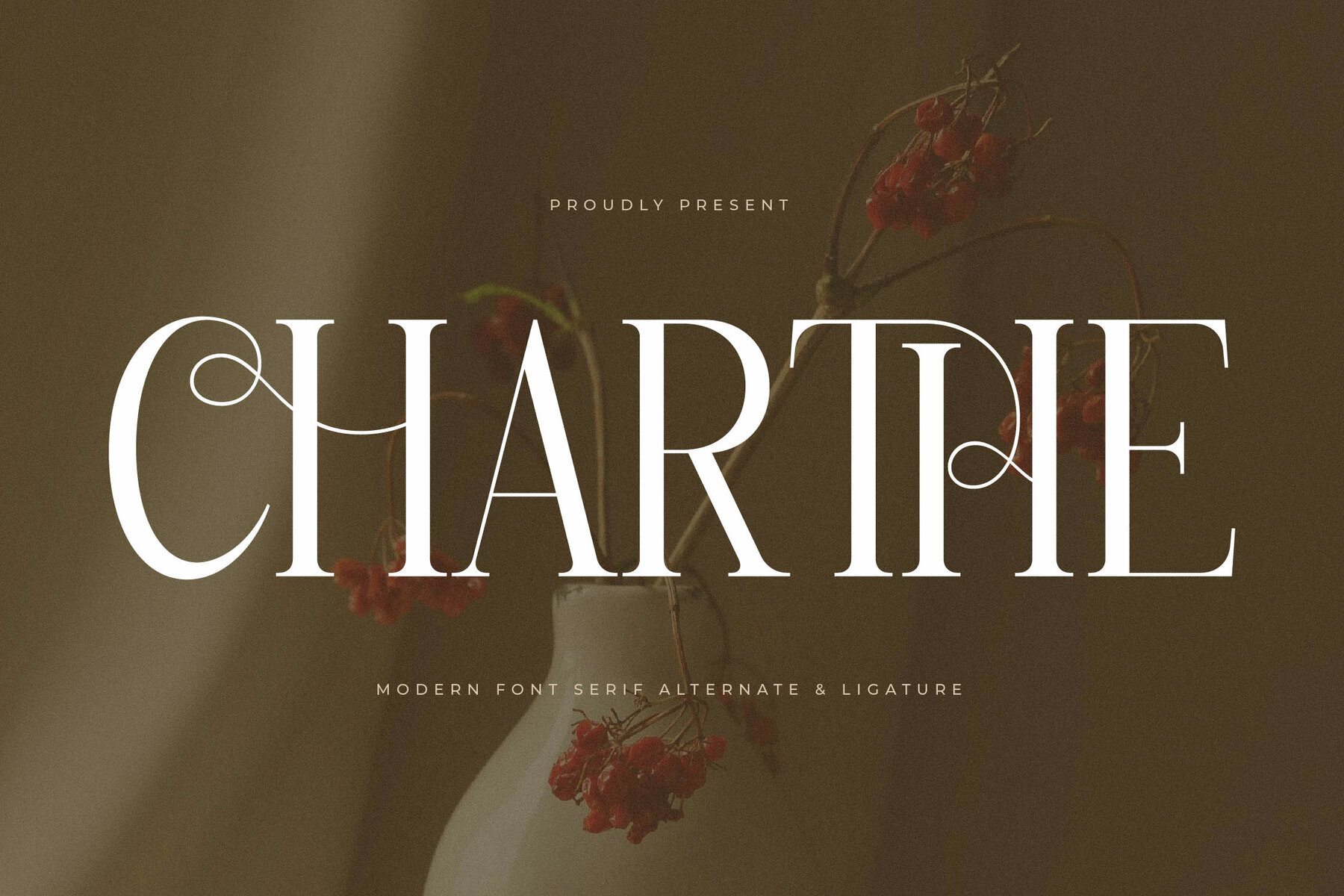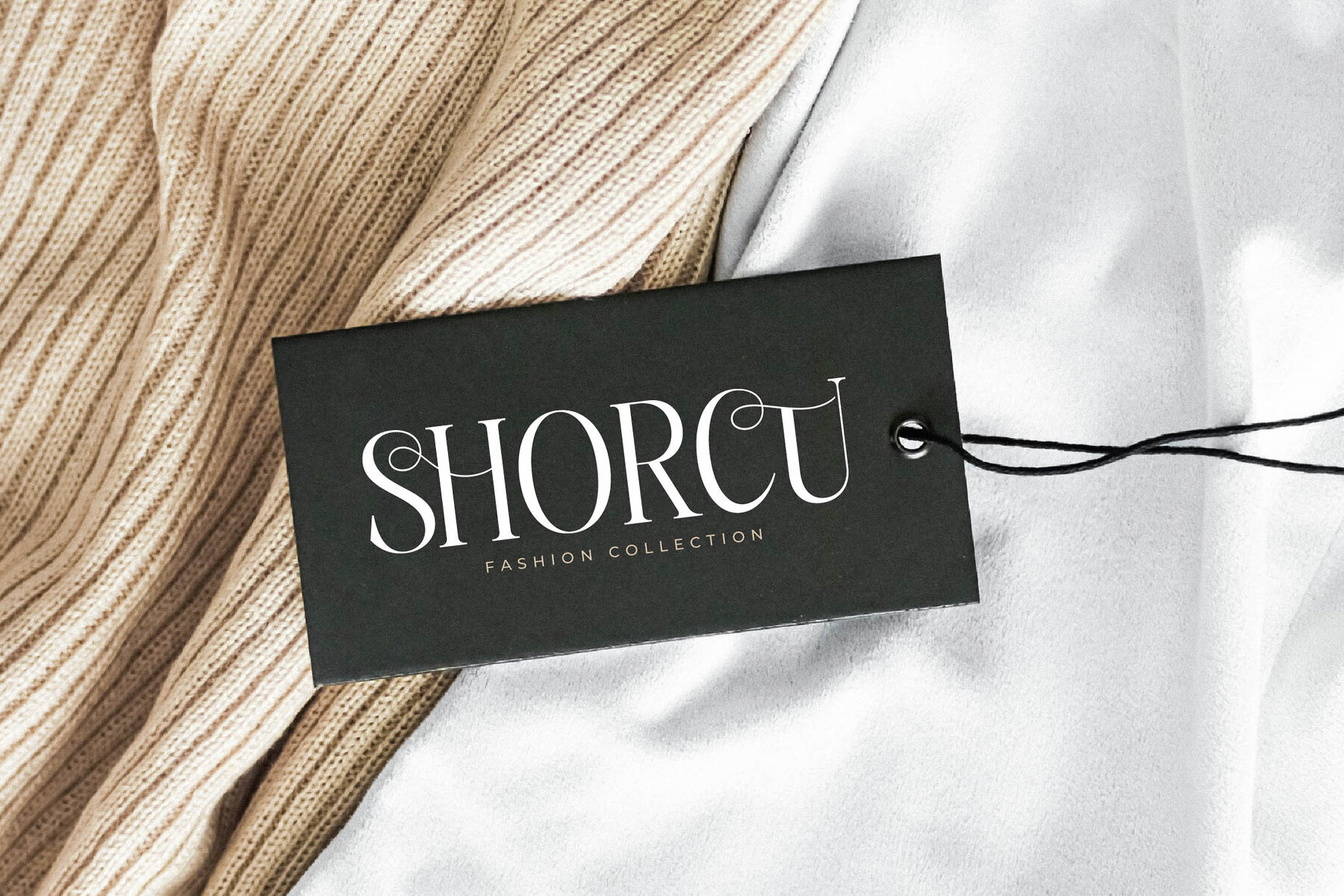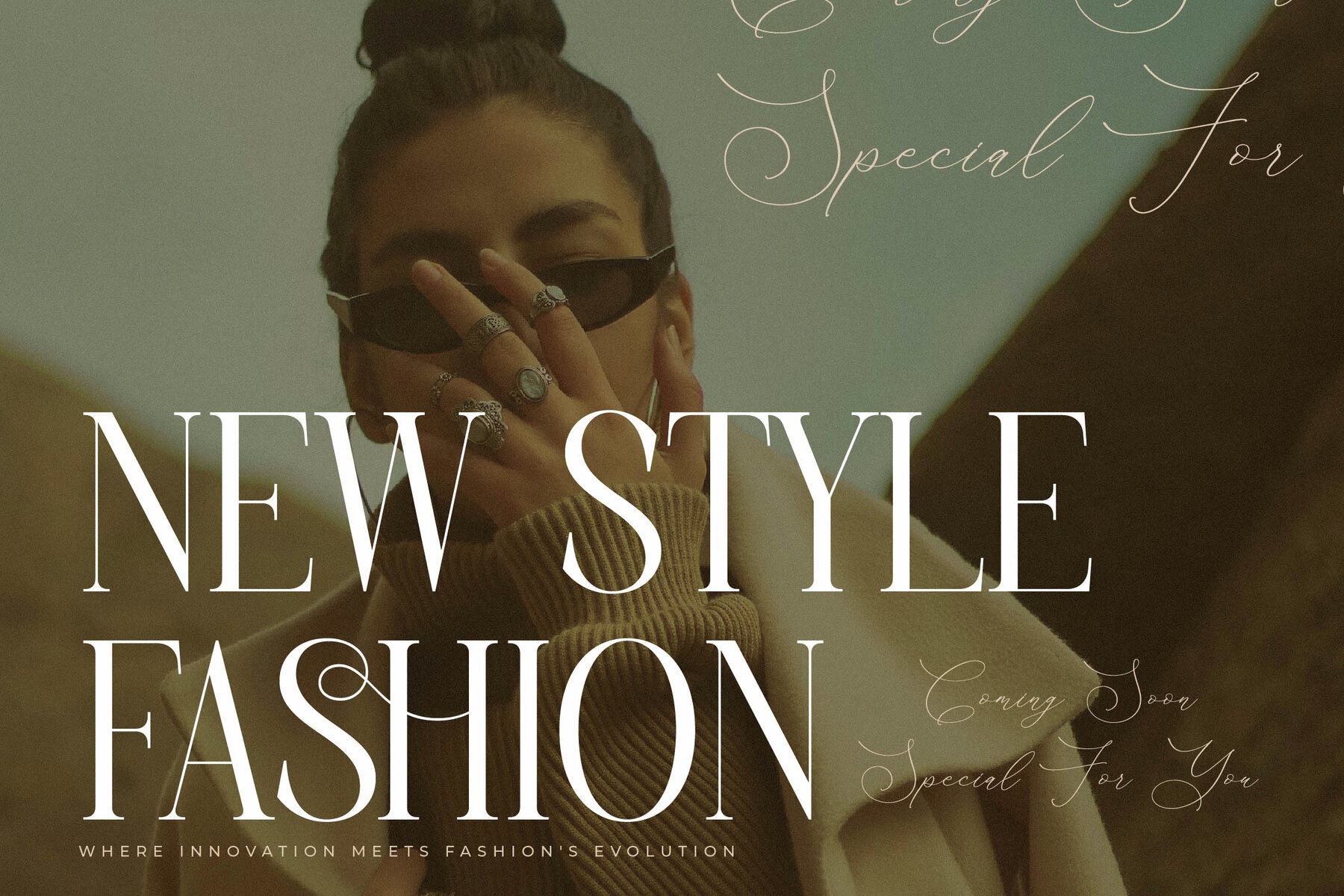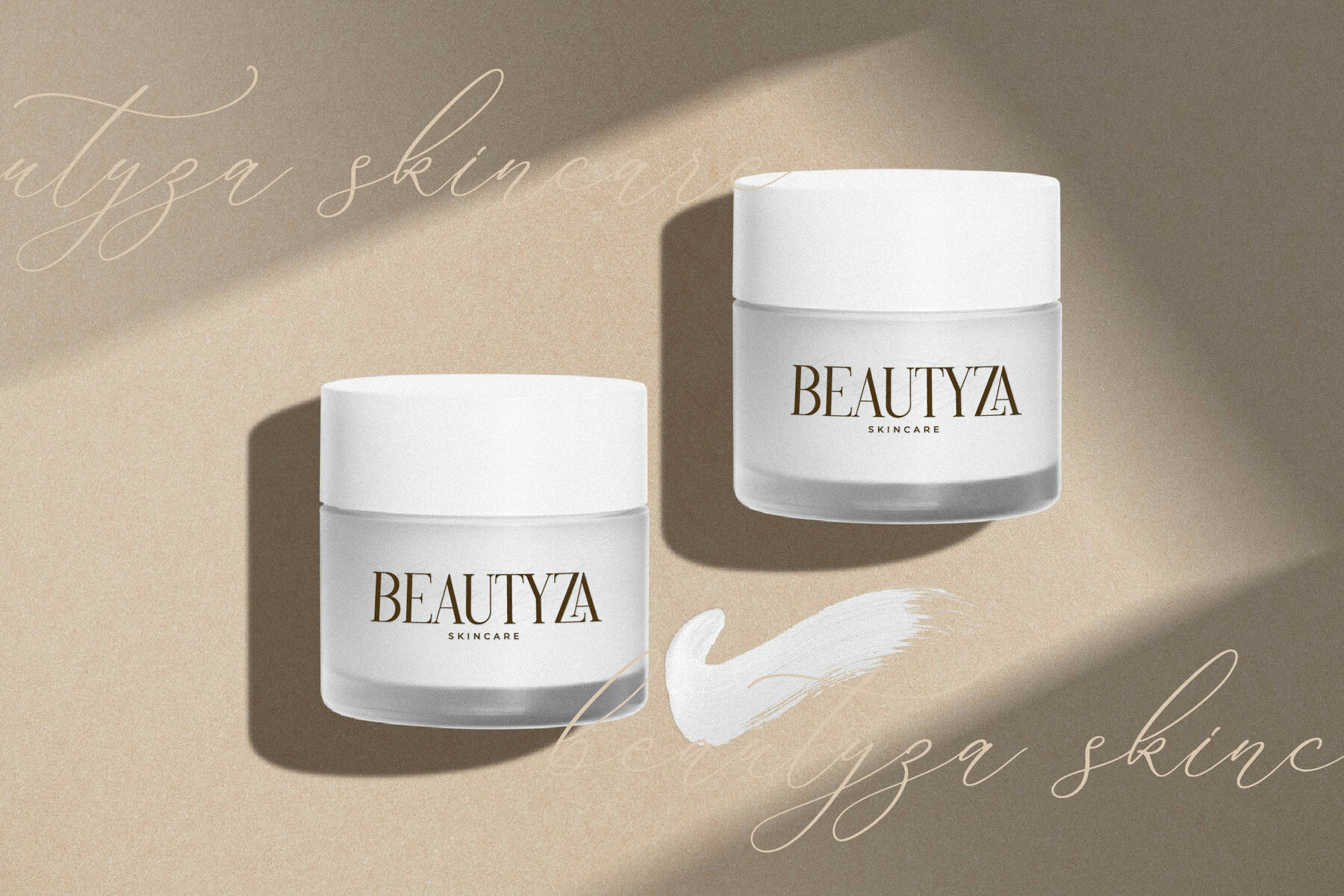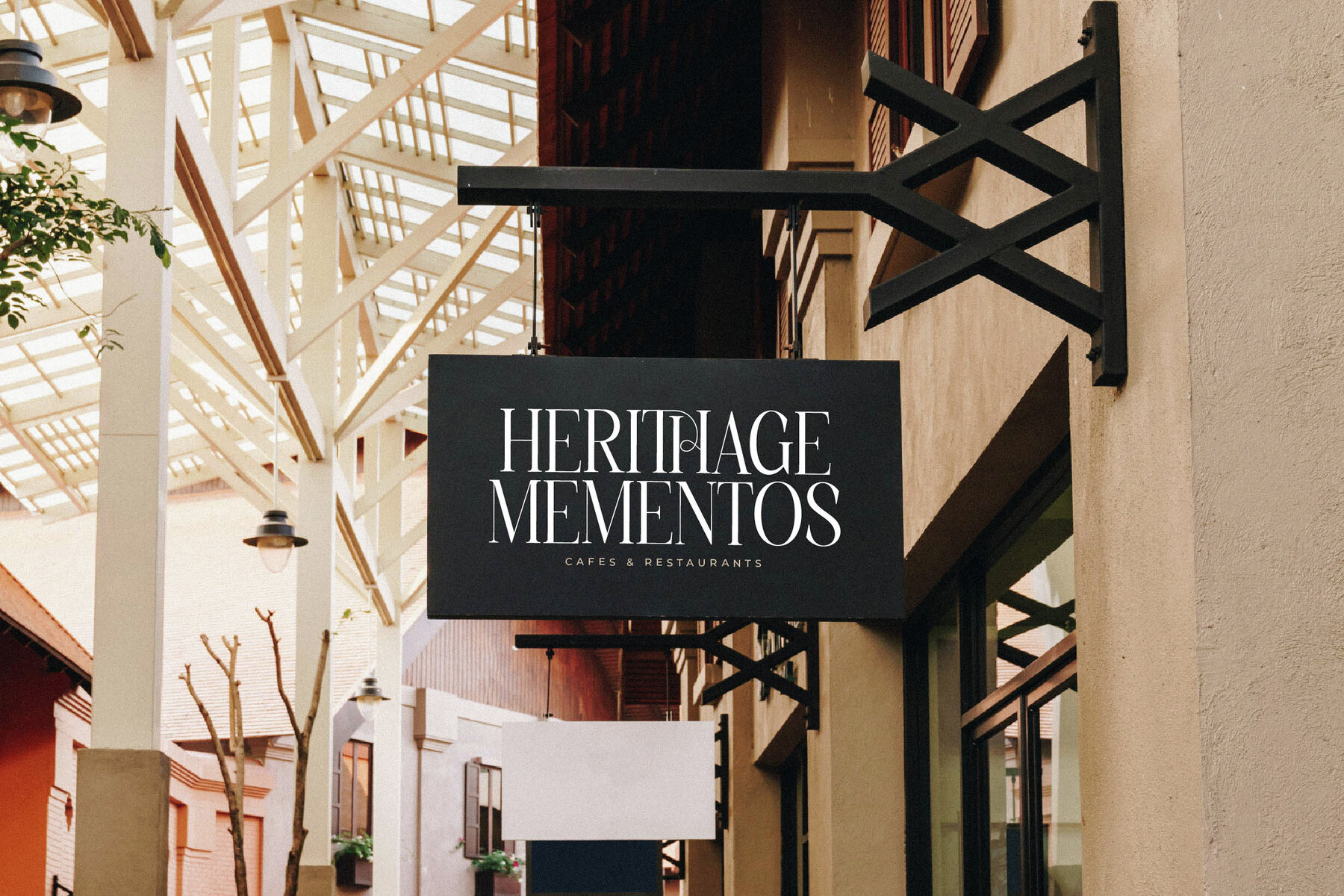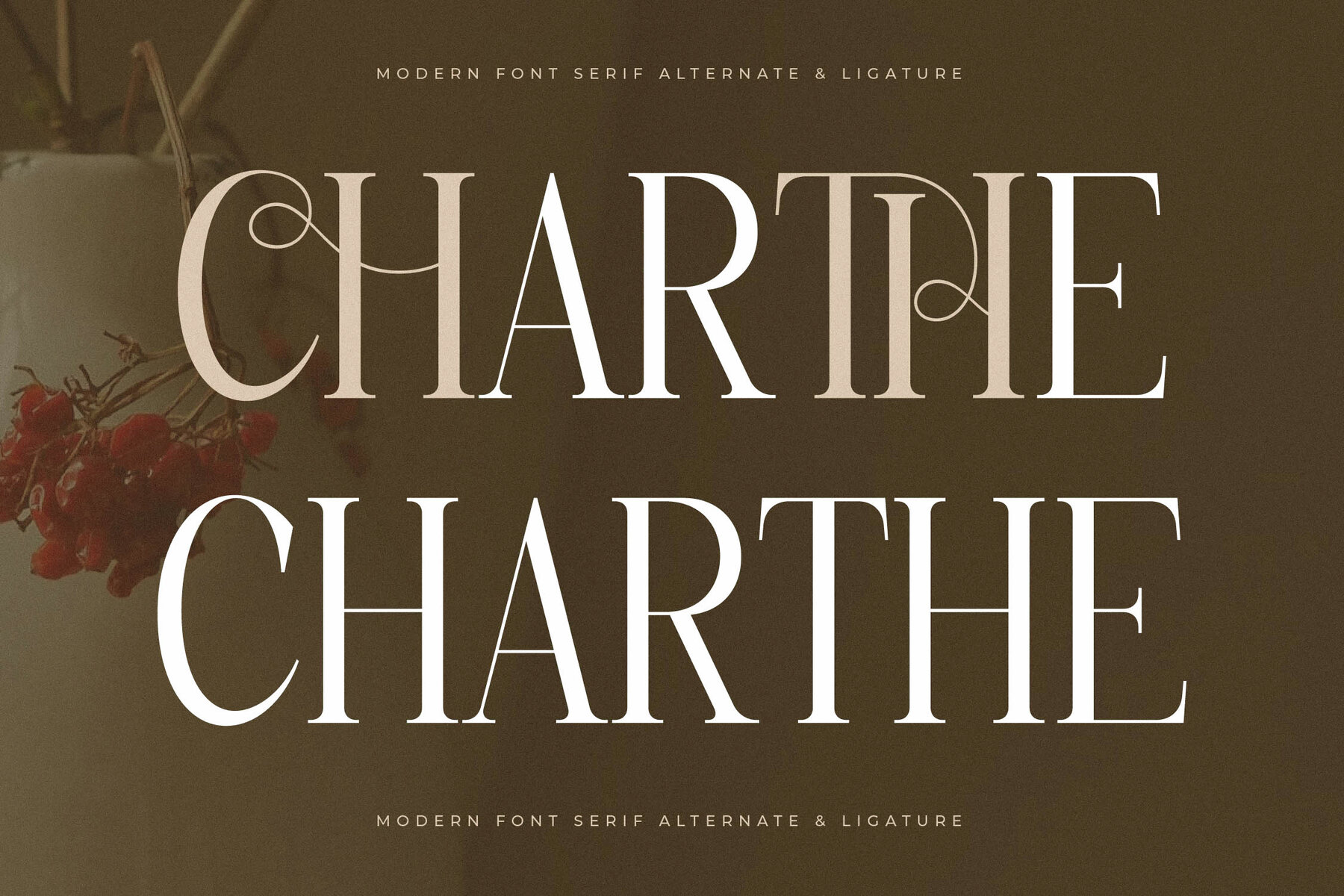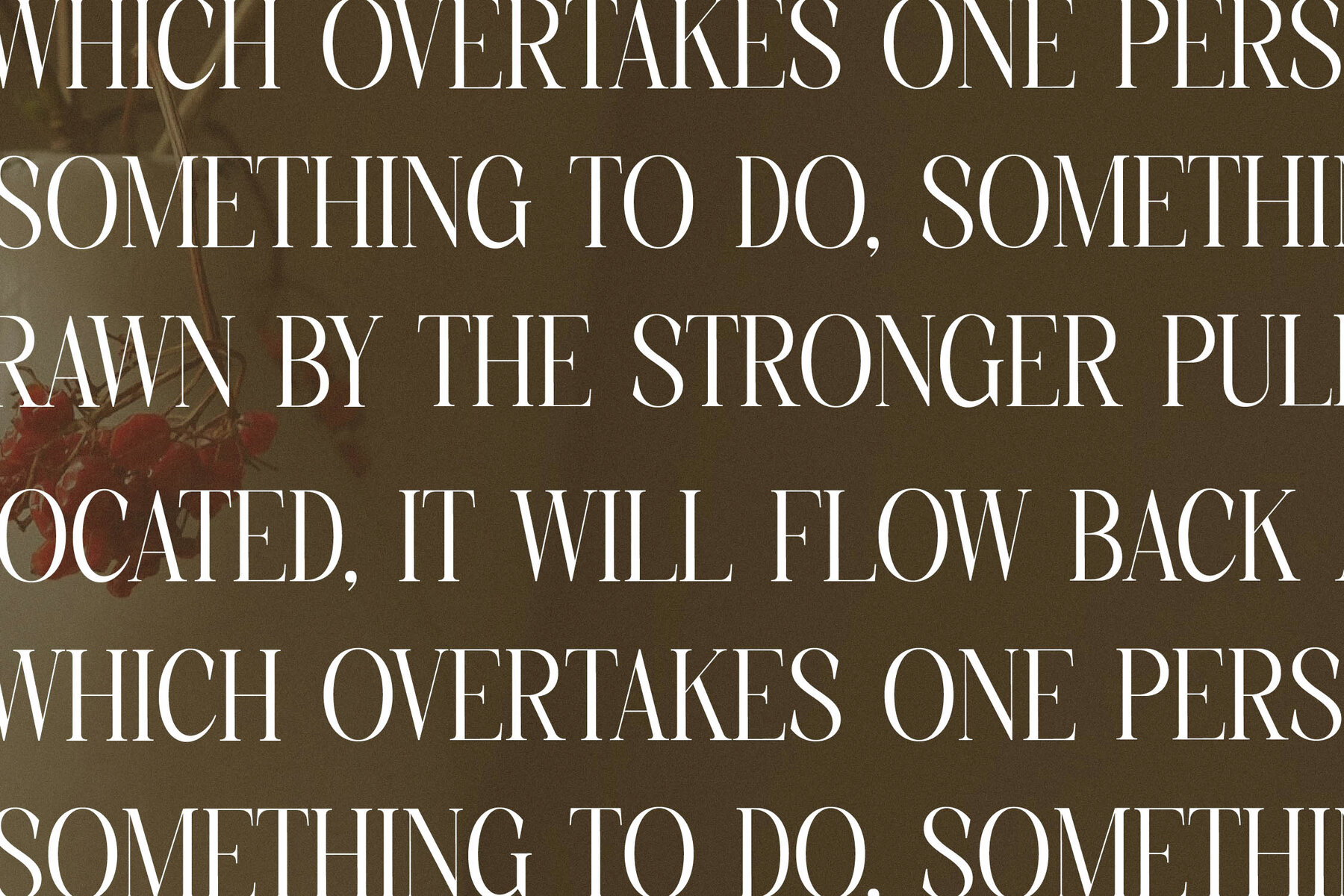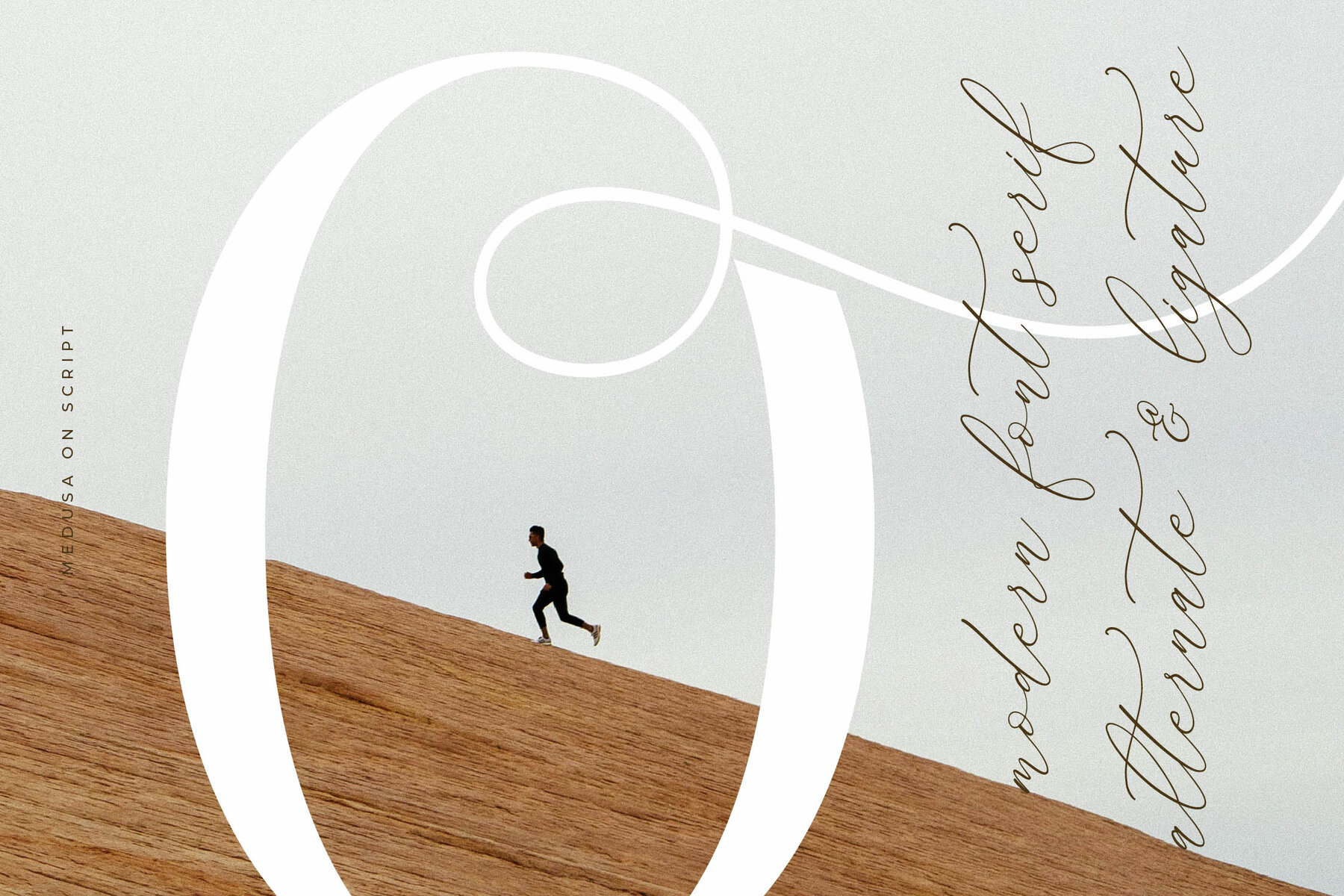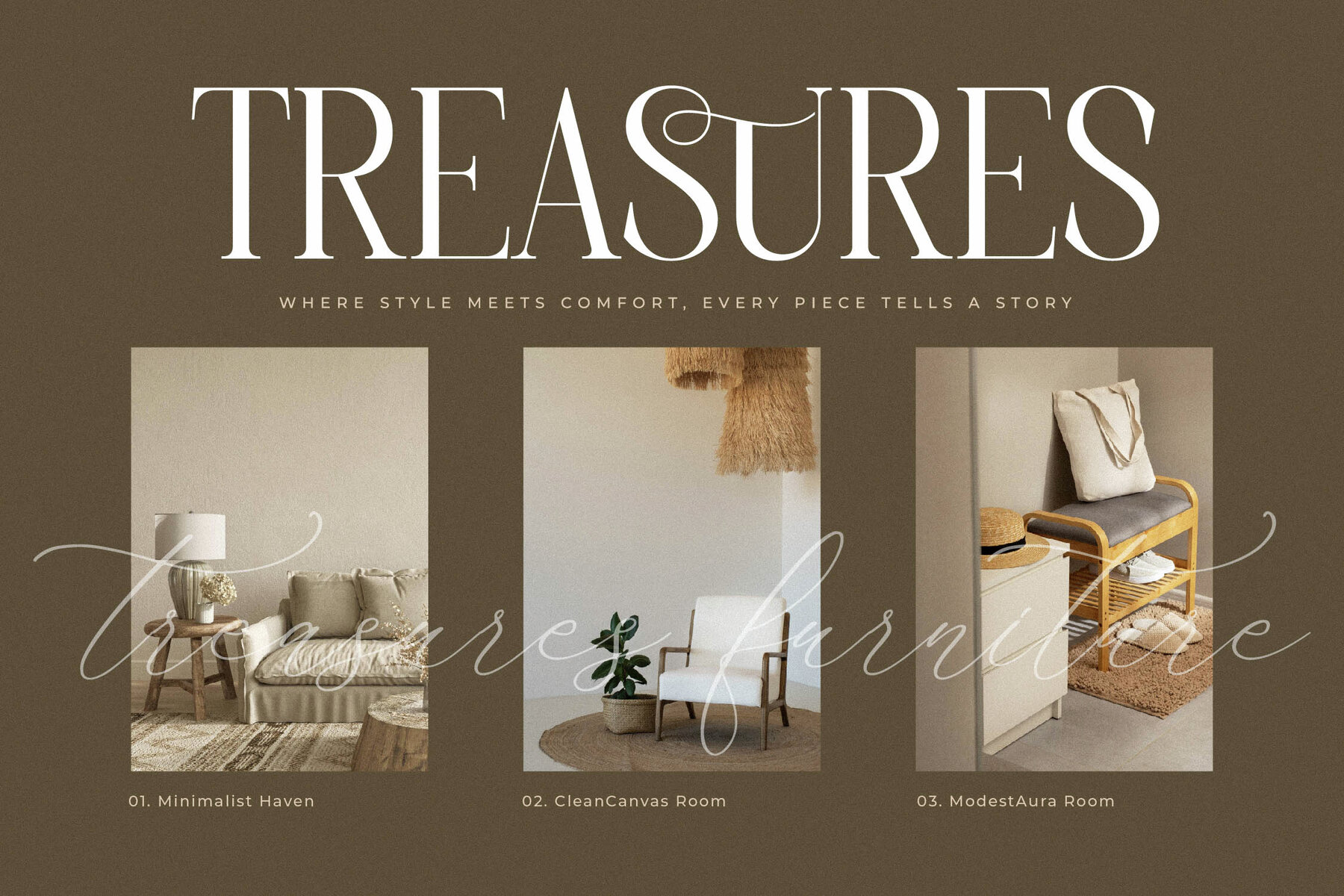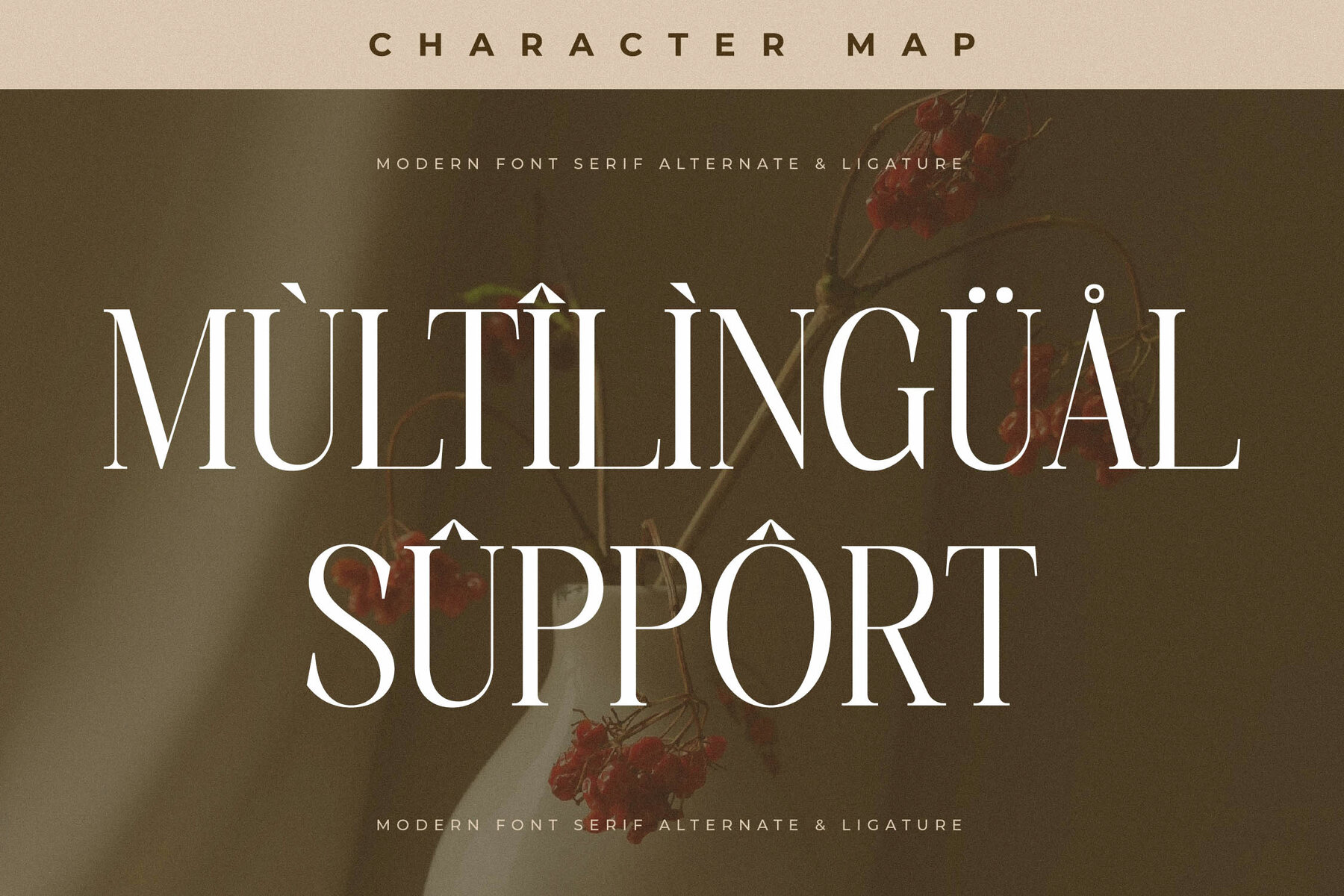
Charthe Font
Charthe Regular
Charthe Italic
Introducing Charthe Typeface, a masterpiece by Storytype Studio that seamlessly blends modern flair with classic sophistication. Perfectly suited for an elegant yet luxurious logo, this serif typeface brings depth and personality to book and movie titles, fashion brands, magazines, and more. The design elements ensure that Charthe stands out in any application, whether it's for refined lettering, quotes, or apparel design.Charthe Typeface: Elegance Redefined